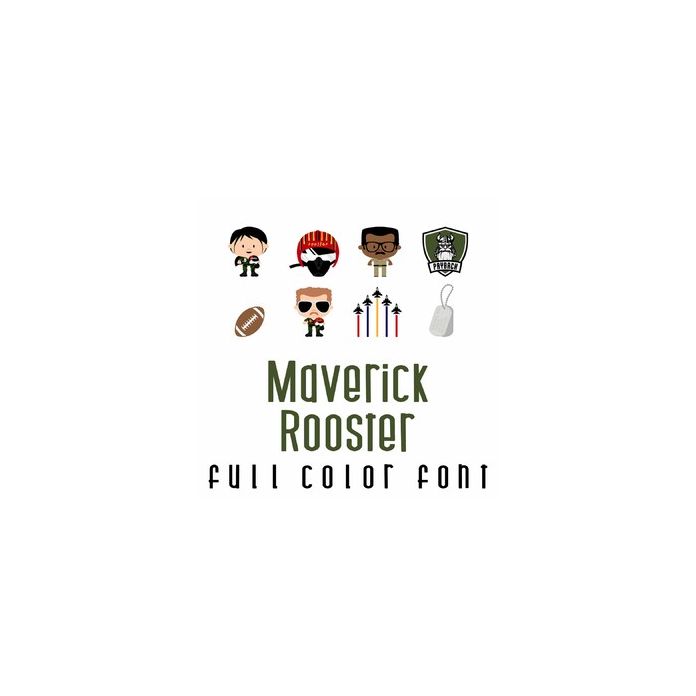
This full color font features our favorite All-American jet fighter pilot and crew. With 26 images it's perfect for Father's Day, crafts, gifts, parties, card making, scrap book pages, planner stickers and more!